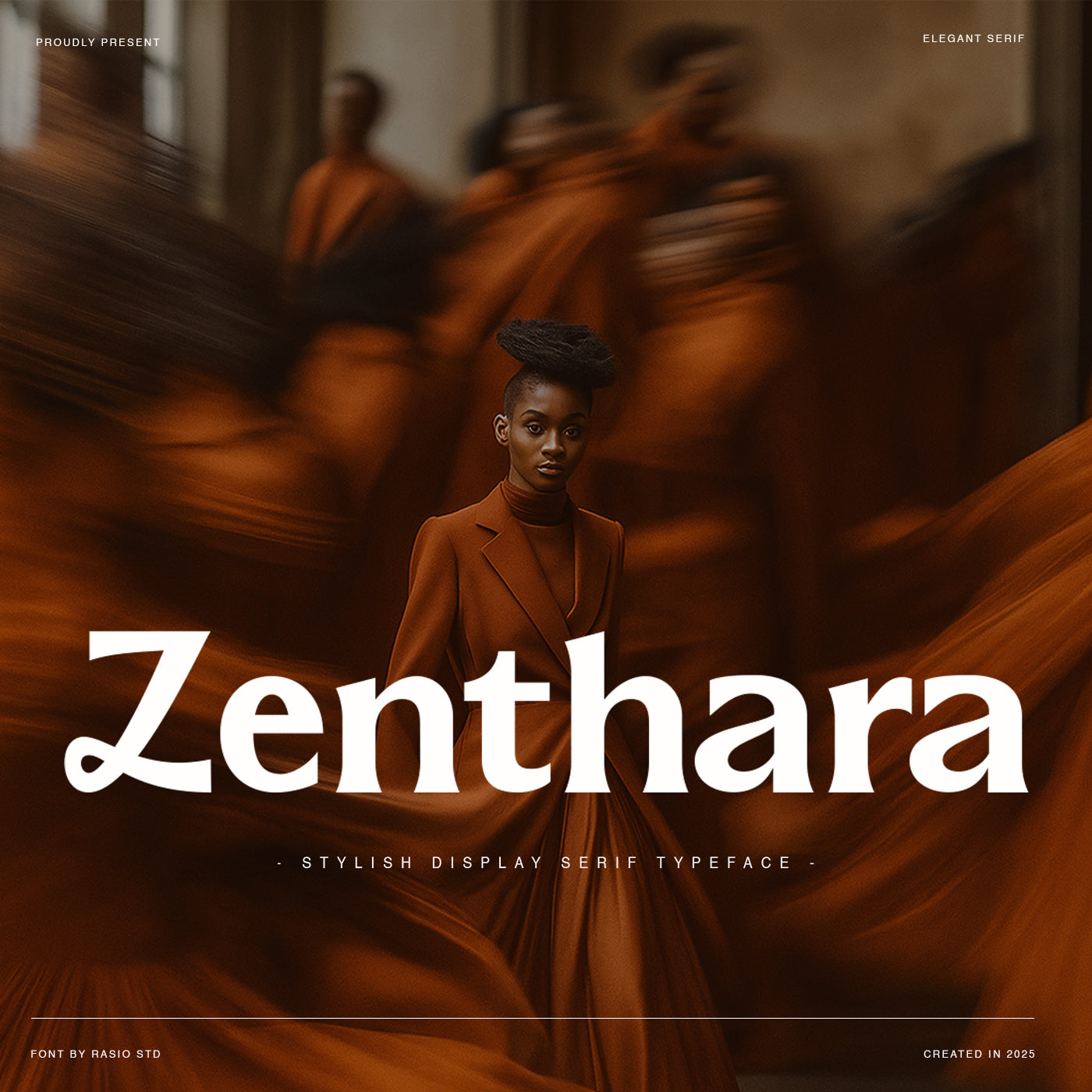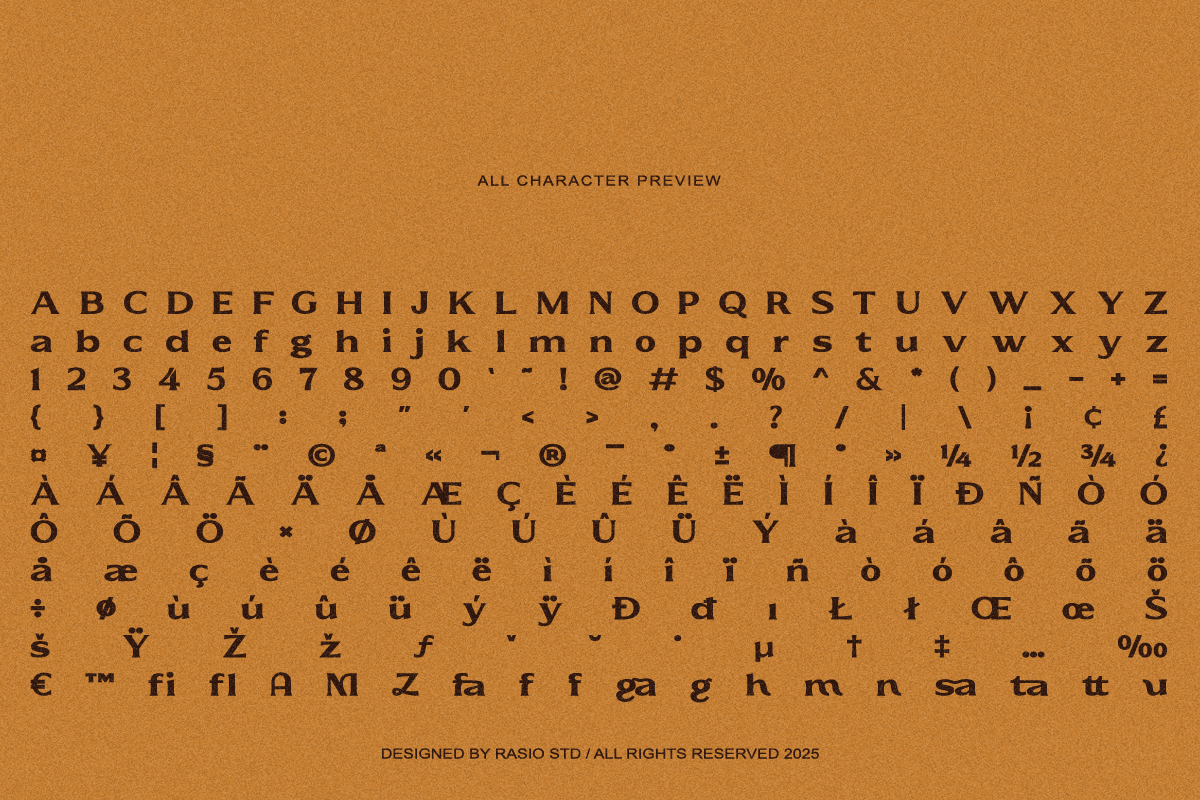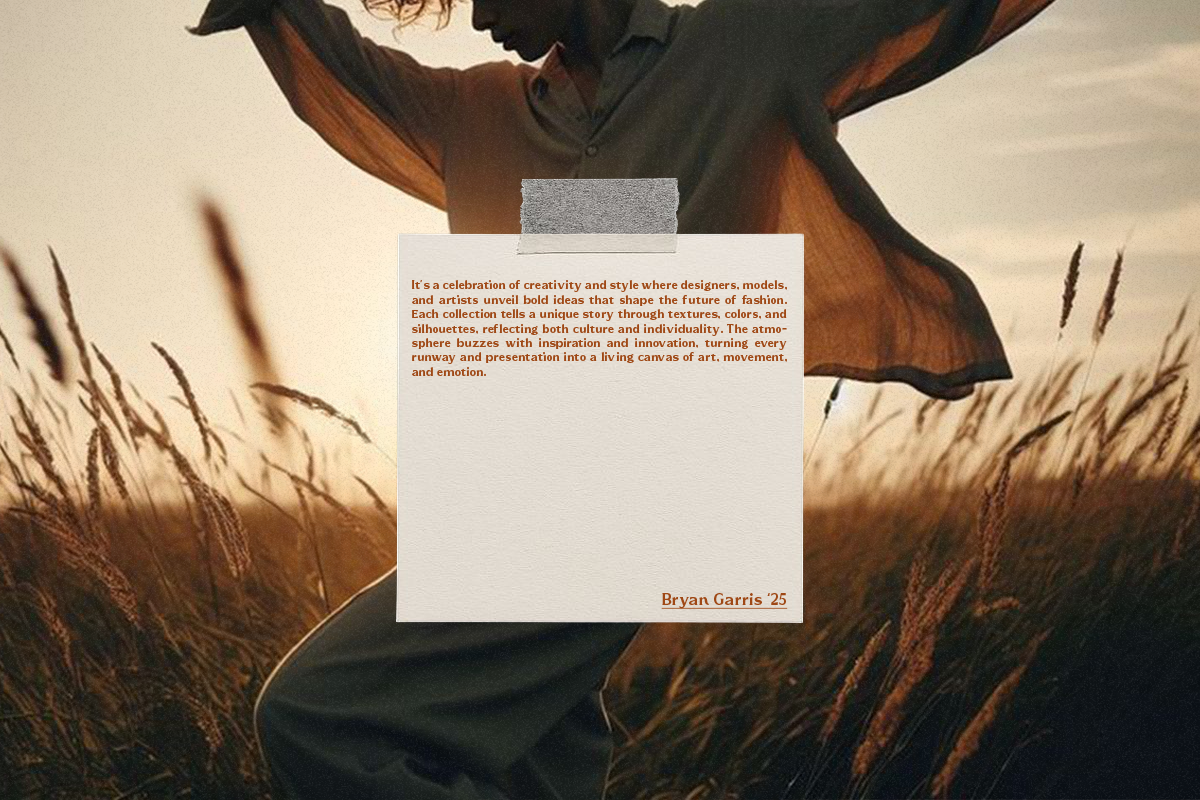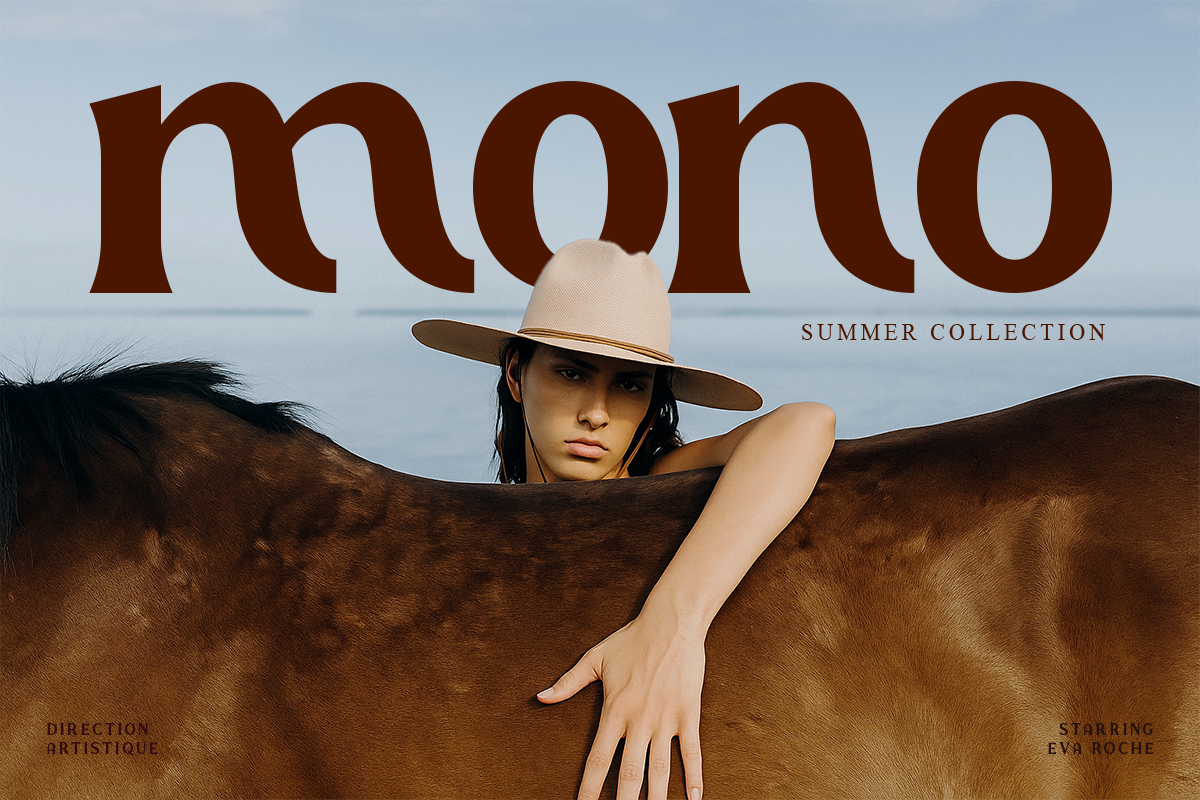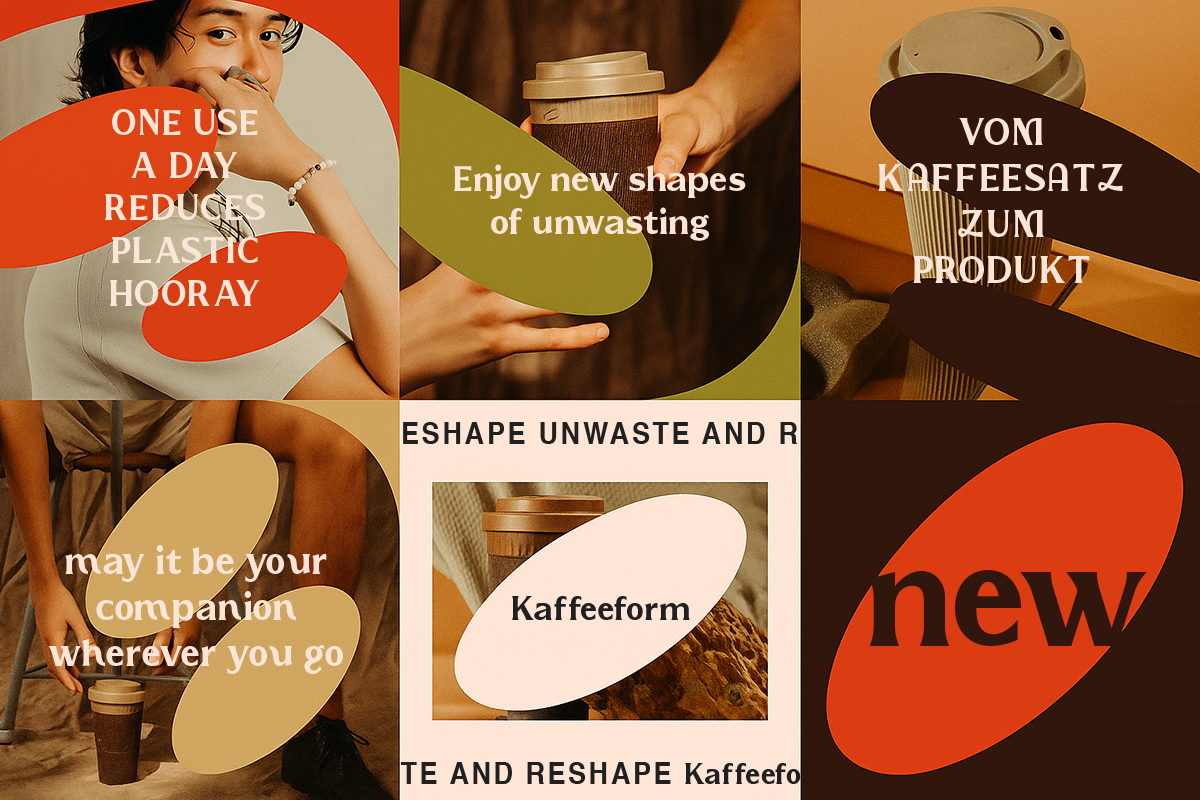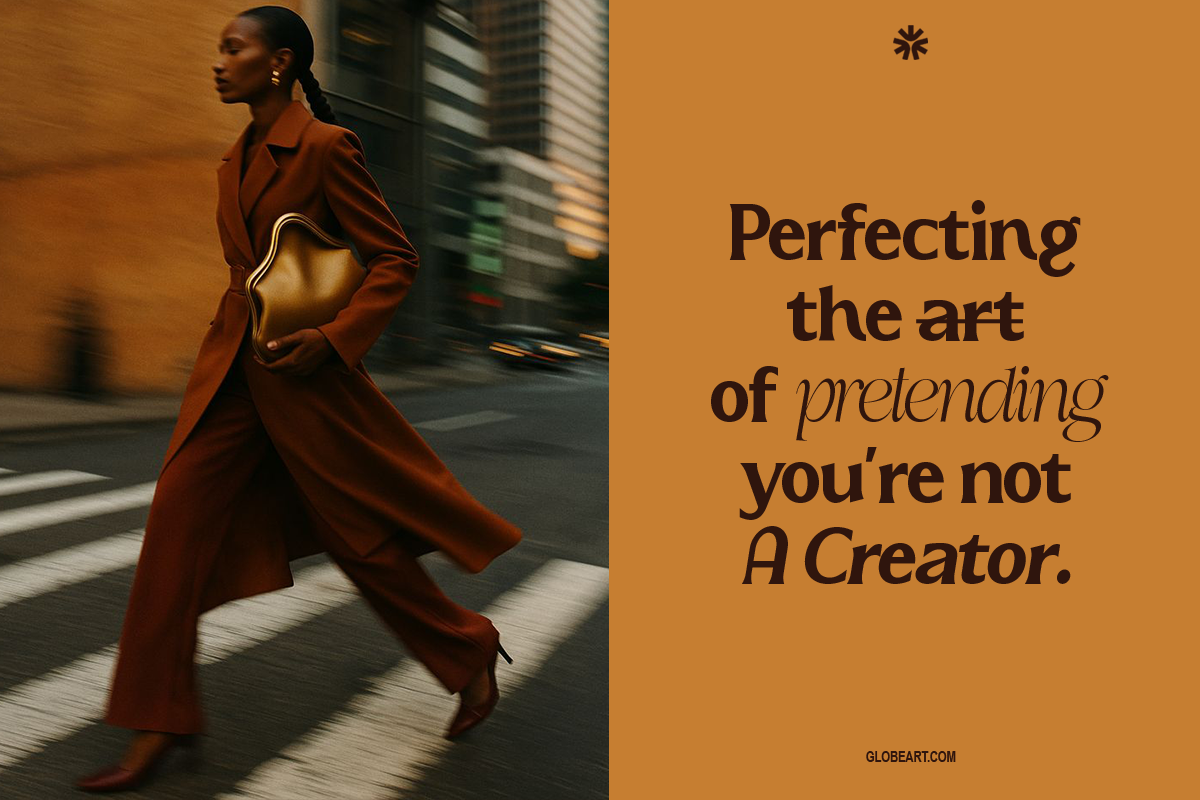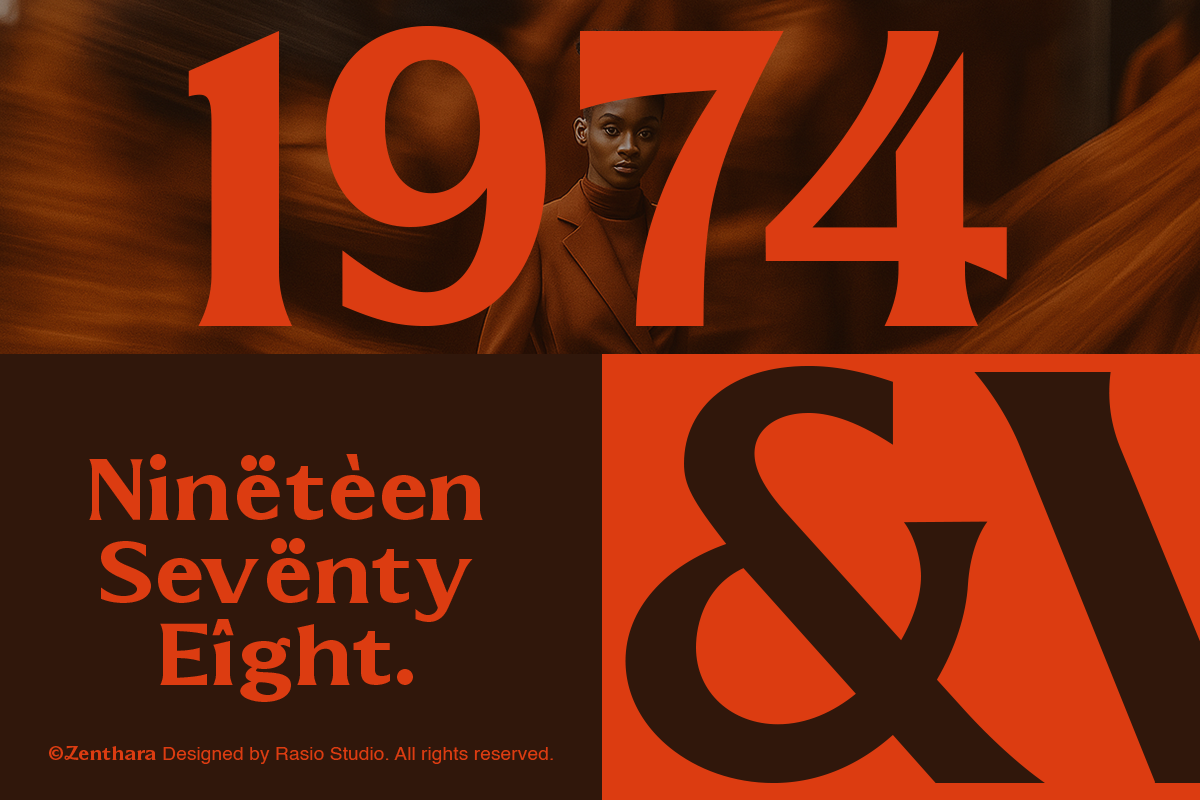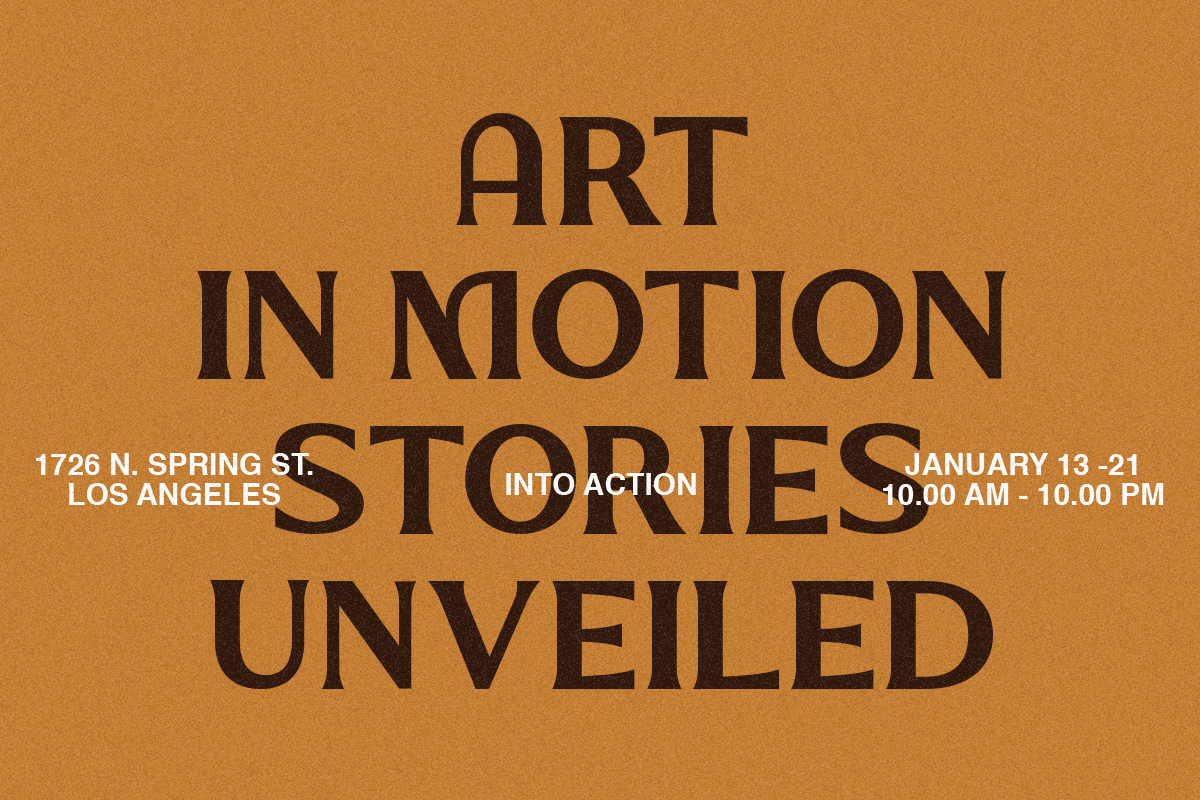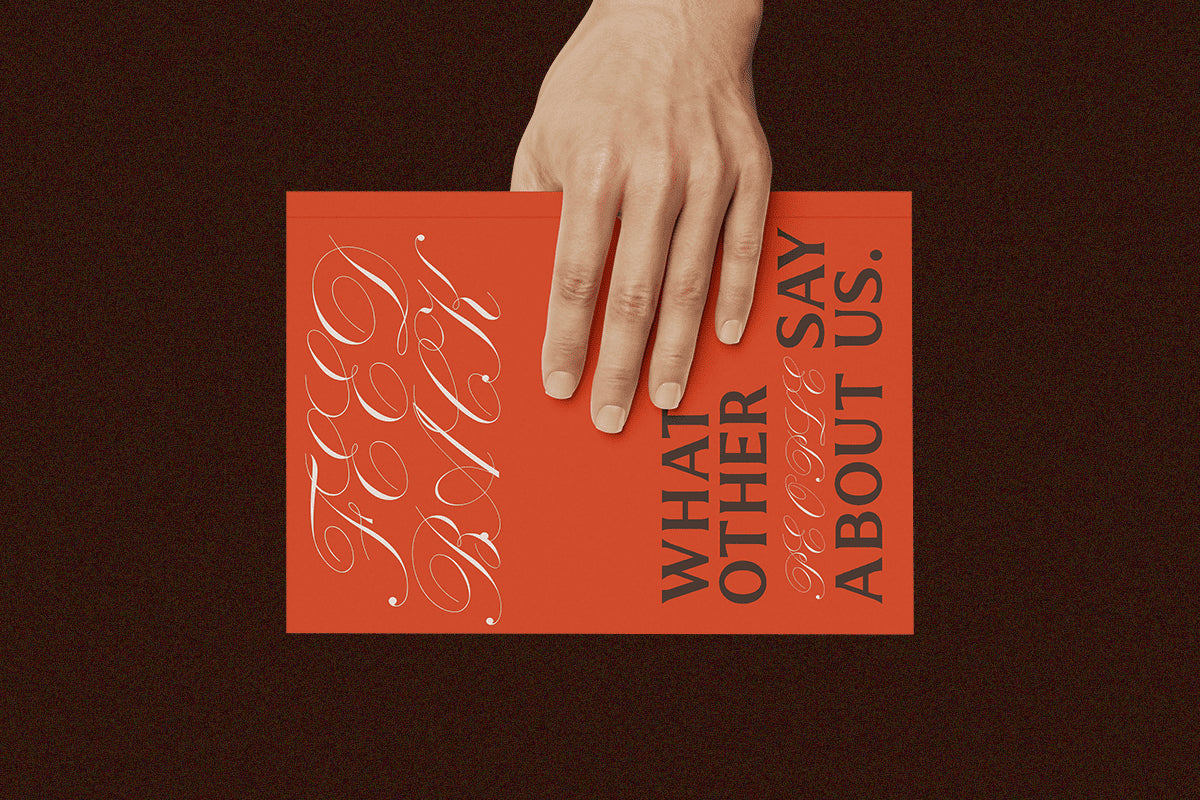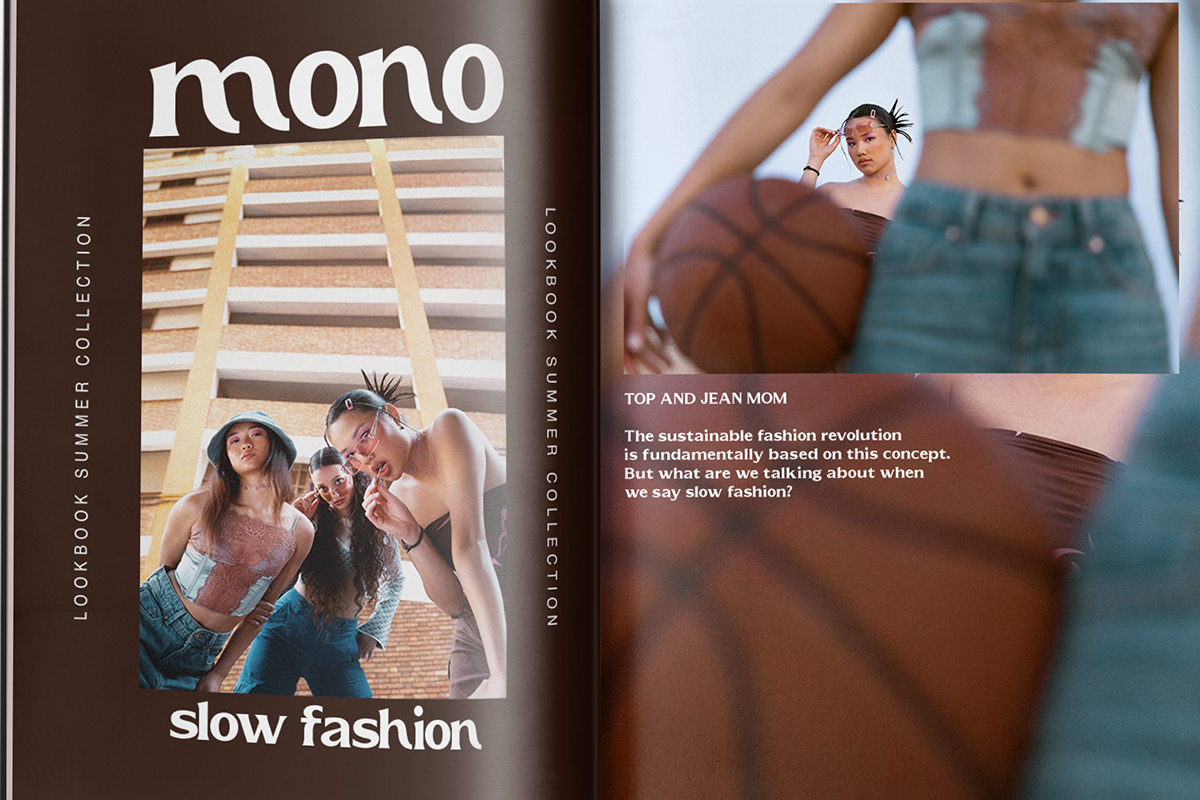
Zenthara Stylish Display Serif Typeface Font
Zenthara is a stylish display serif typeface inspired by modern editorial aesthetics and high-end branding design. Its refined contrast, sculpted serif strokes, and expressive curves give every headline a luxurious and confident presence. Designed for fashion campaigns, premium packaging, lifestyle magazines, beauty brands, and sophisticated visual identity systems. Comes with uppercase, lowercase, numerals, punctuation, extended multilingual support, and ligatures for an elegant and polished typographic experience.
Relevance and Use Cases is perfect for luxury branding, high-fashion campaigns, editorial magazine layouts, premium packaging design, beauty & skincare identity, wedding stationery, upscale product labels, modern logo marks, art-directed social media visuals, boutique fashion catalogs, and elegant print advertisements.
Zenthara is a display serif typeface featuring refined contrast, sculpted serif strokes, and expressive curves. It includes uppercase and lowercase letters, numerals, punctuation, ligatures, alternates, and multilingual support, available in TTF, OTF, and WOFF formats.